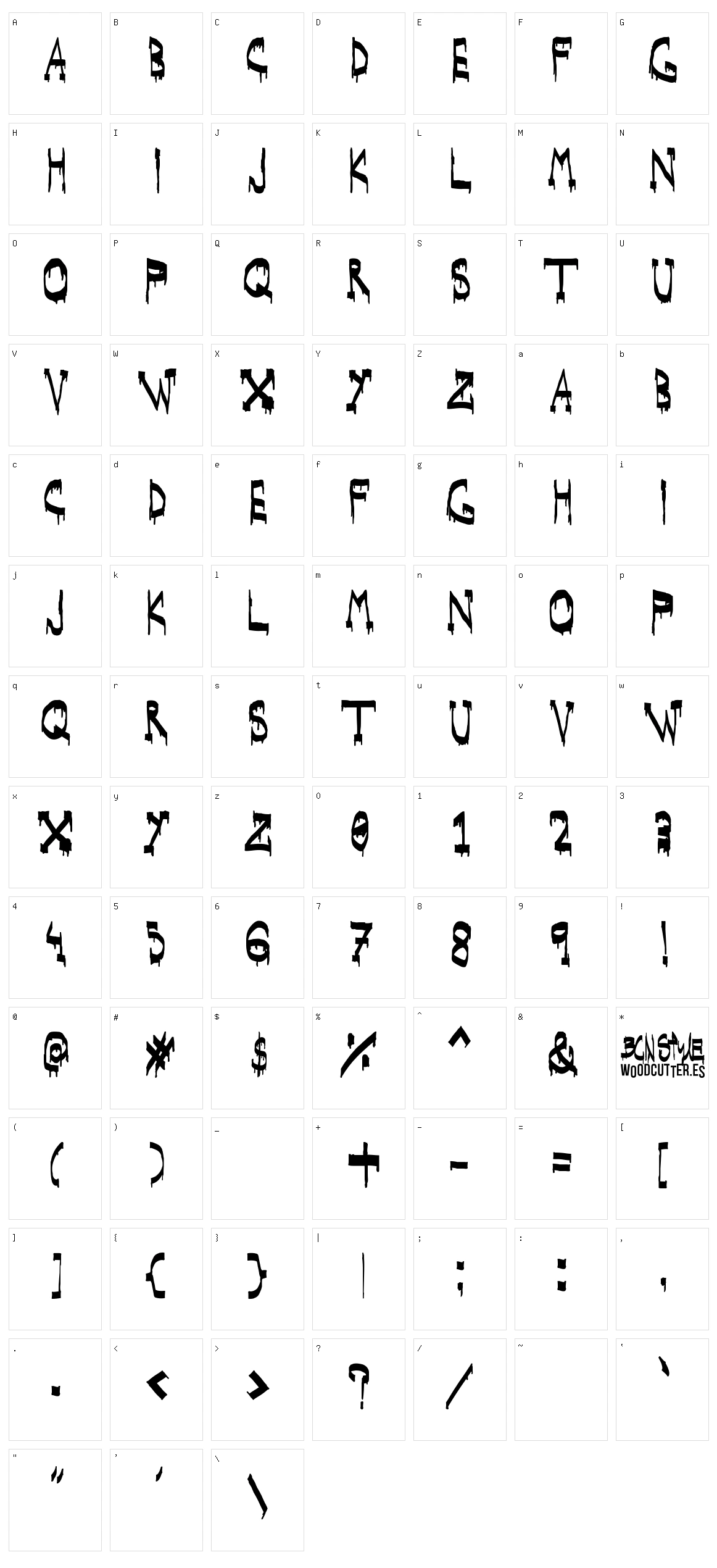
The free font Woodcutter BCN Style is carefully designed by Woodcutter, showcasing a thoughtful balance of creativity and usability and falls under the Horror font style. When you download the ZIP file, it contains only 80.65 KB of font files, making it lightweight and quick to download. Please review the license details below to understand permitted usage and distribution rights. If license information is not available, we recommend using this font for personal projects only or contacting the author directly for commercial usage permissions.